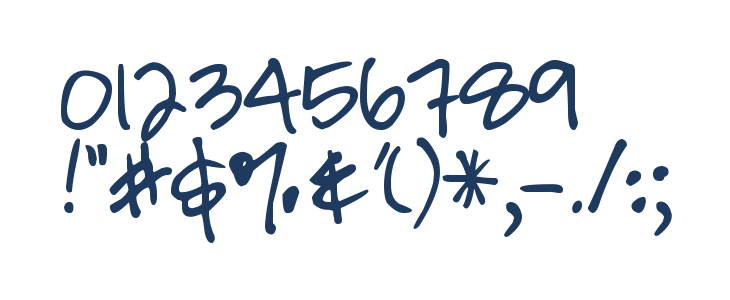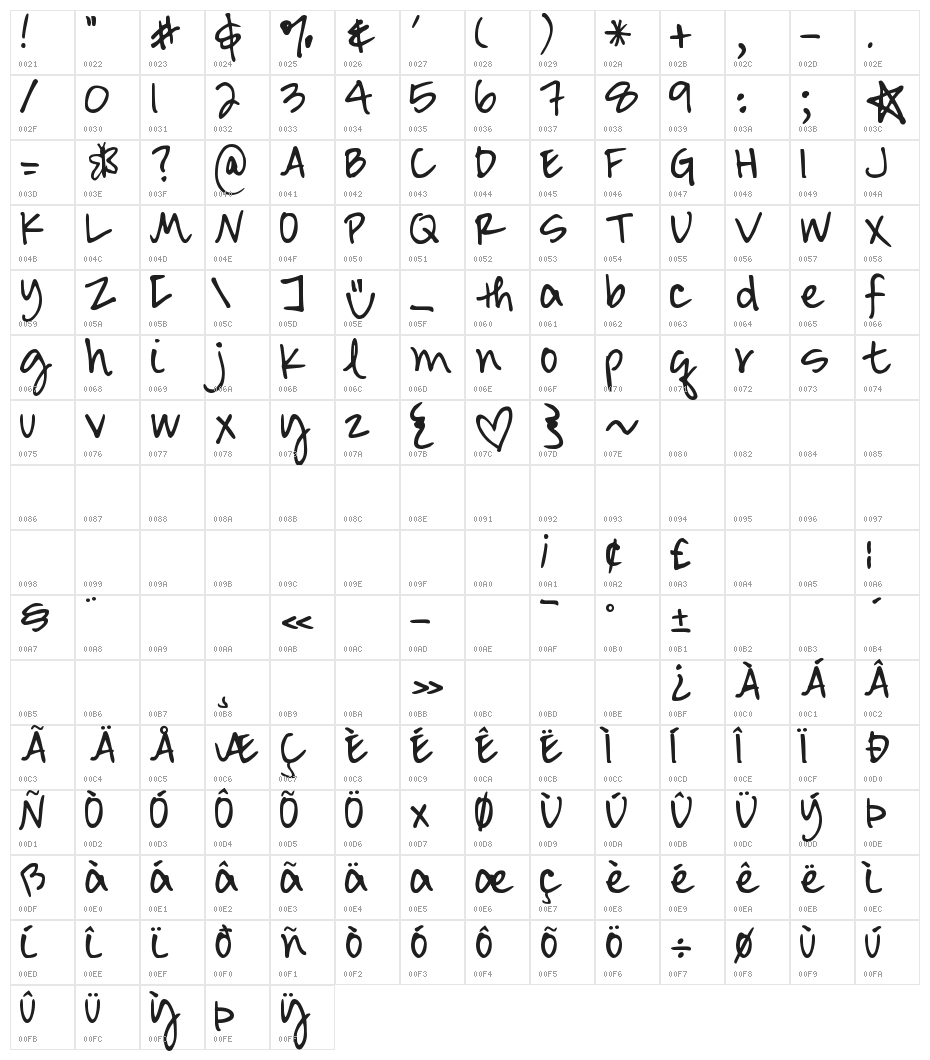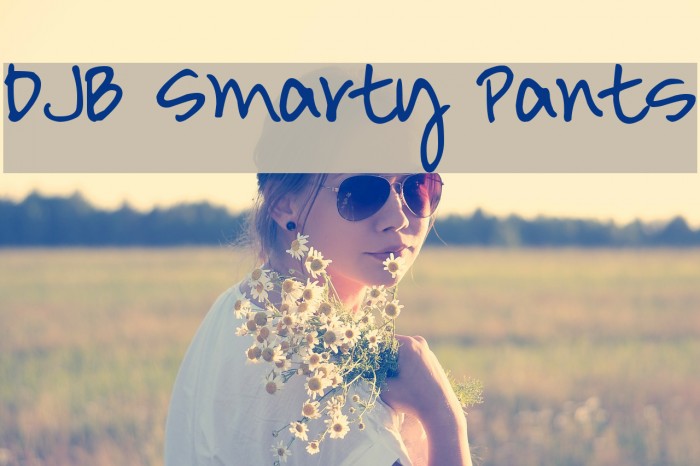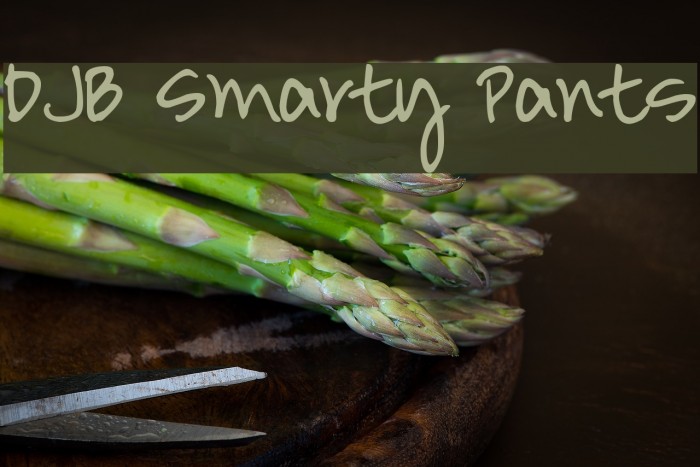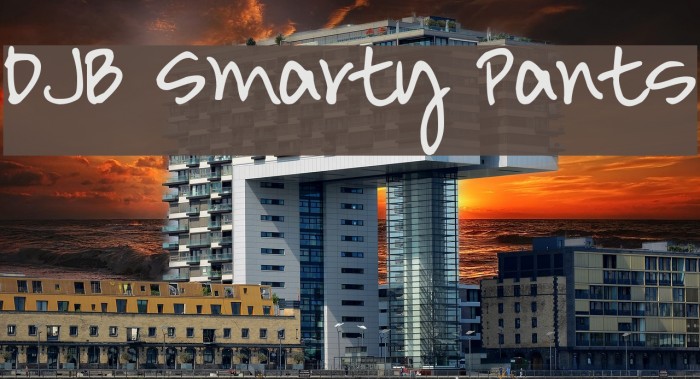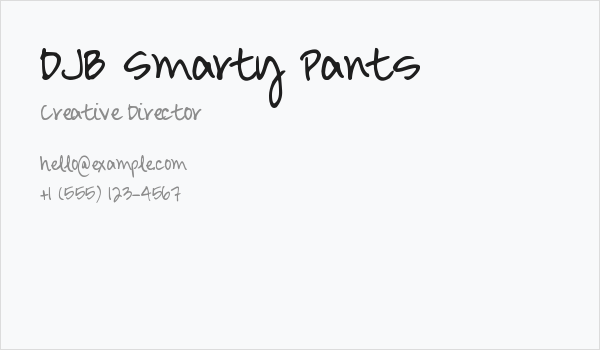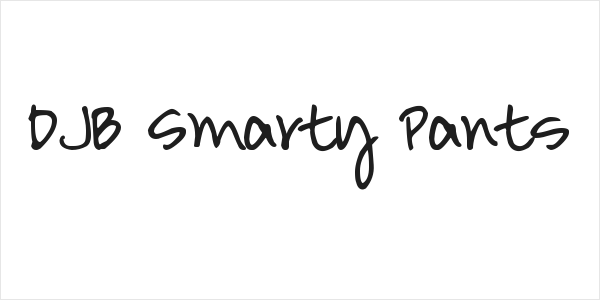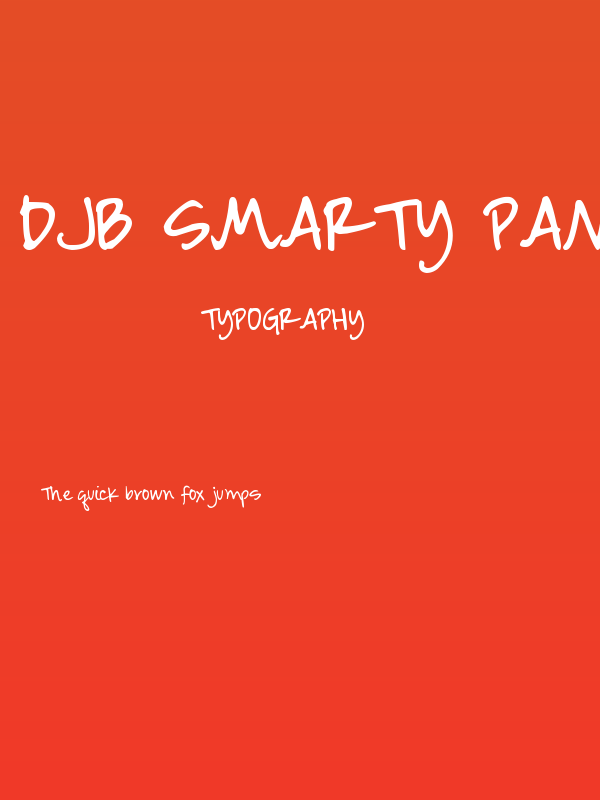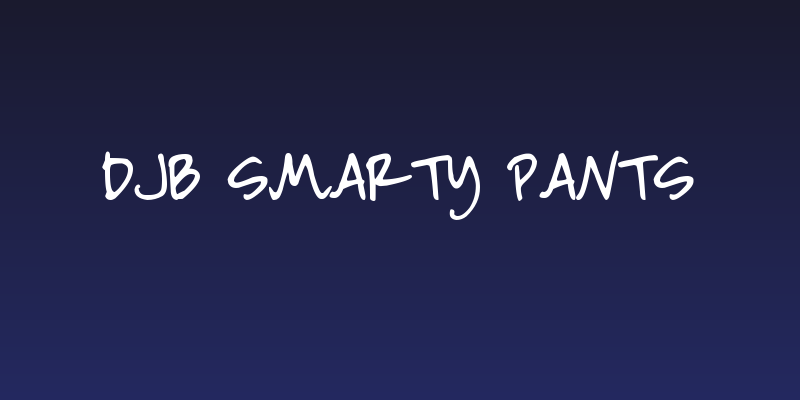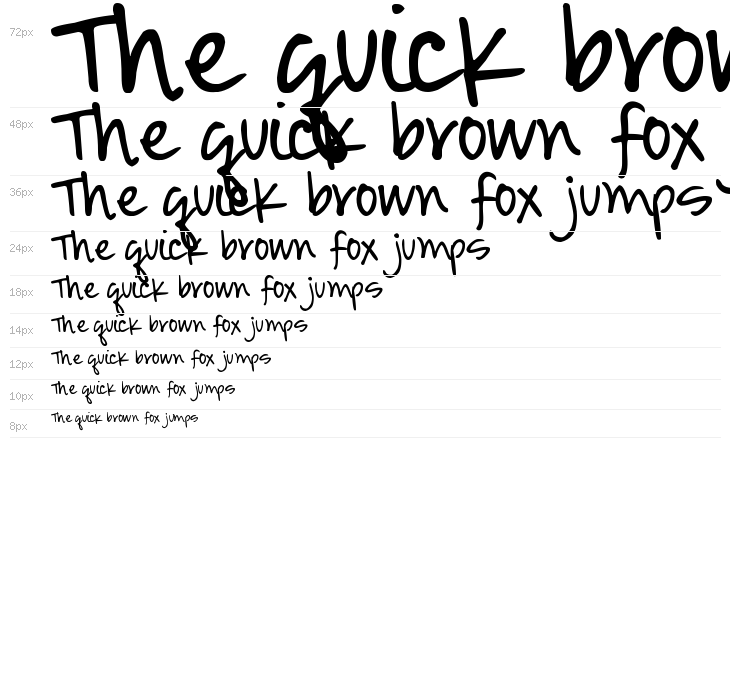
DJB Smarty Pants Font
DJB Smarty Pants Description
This playful and energetic font features a handwritten style that exudes a sense of casual charm and spontaneity. The characters are crafted with a smooth, flowing stroke that mimics the natural movement of handwriting. Each letter has a unique personality, with slight variations in size and angle, adding to the font's authentic and lively appearance. The uppercase and lowercase letters maintain a consistent style, while the numerals and special characters integrate seamlessly, ensuring versatility across different applications. The font's informal and friendly nature makes it ideal for projects that require a personal touch.
| Proposed Projects | Ideal for greeting cards, personal invitations, children's books, and playful branding. |